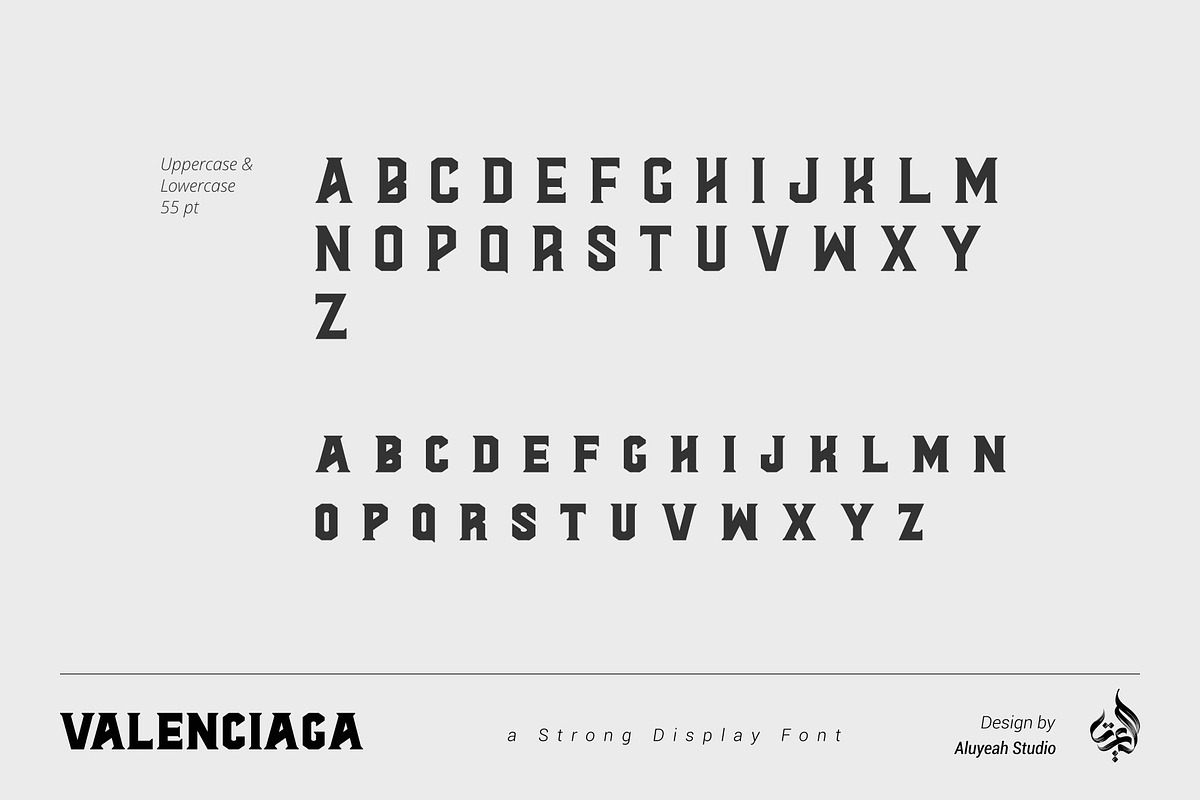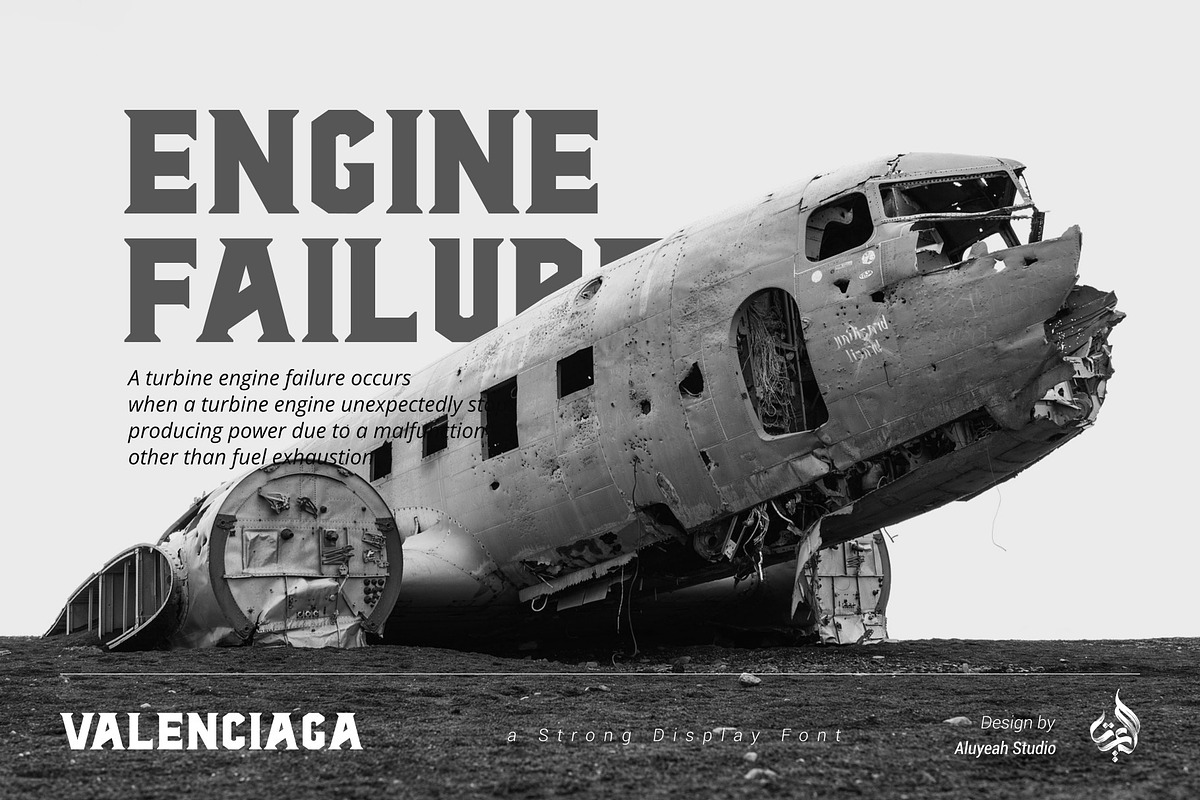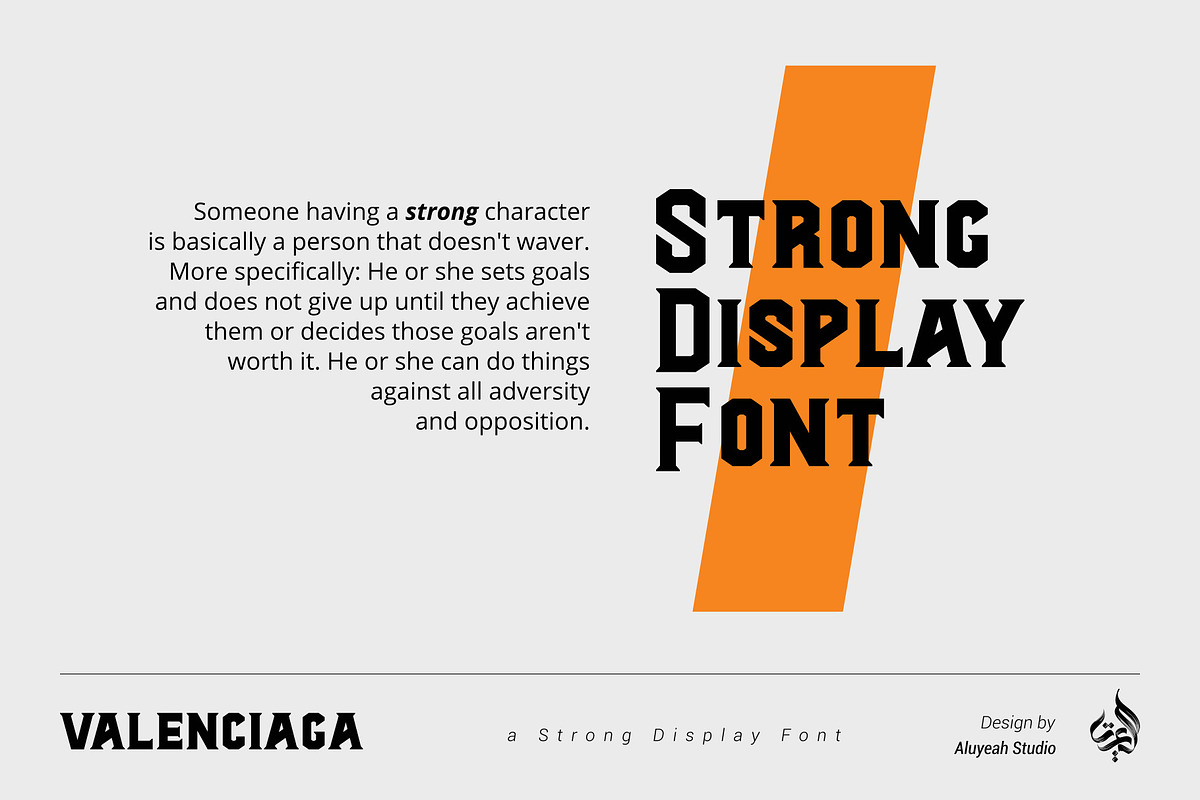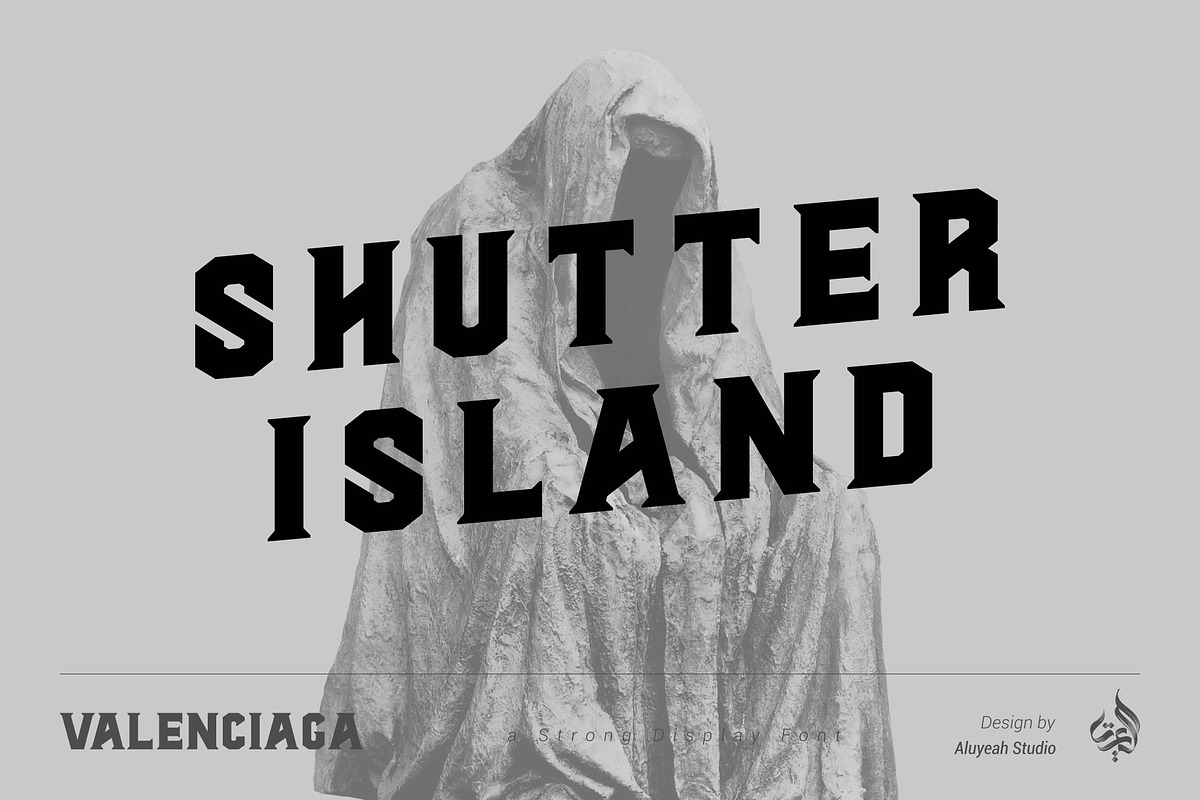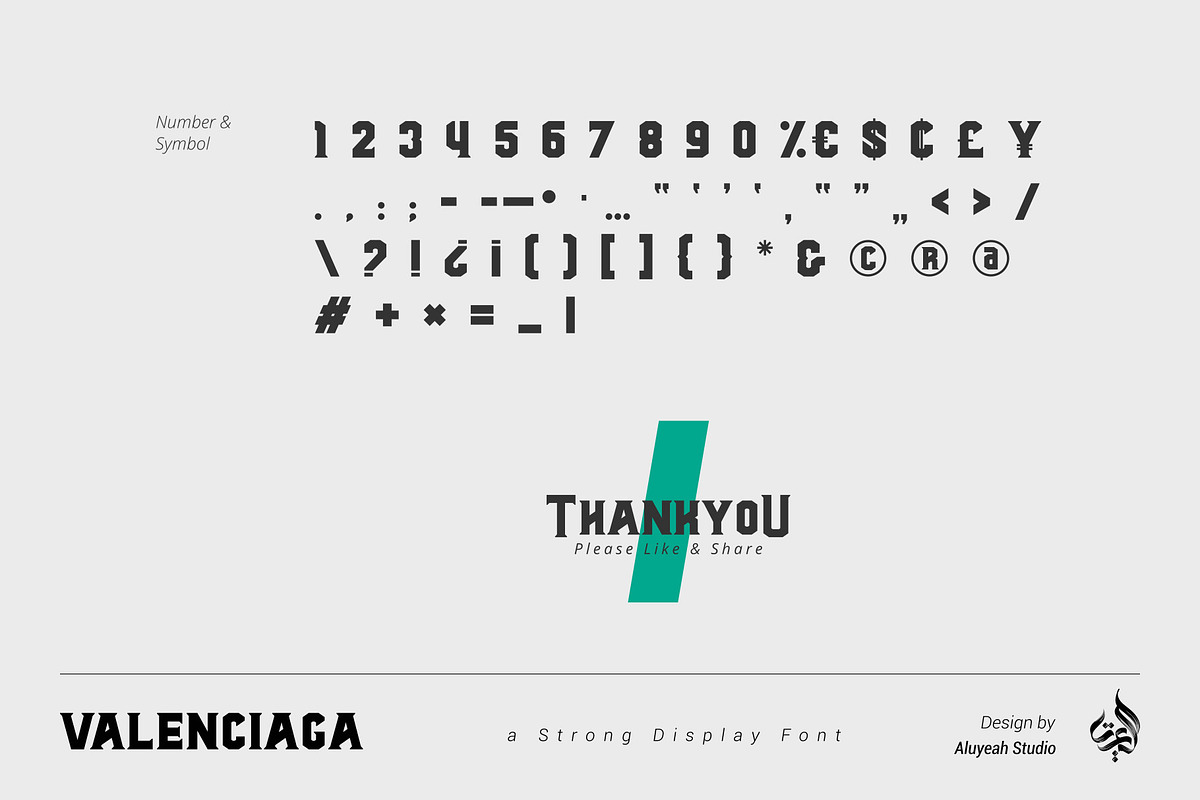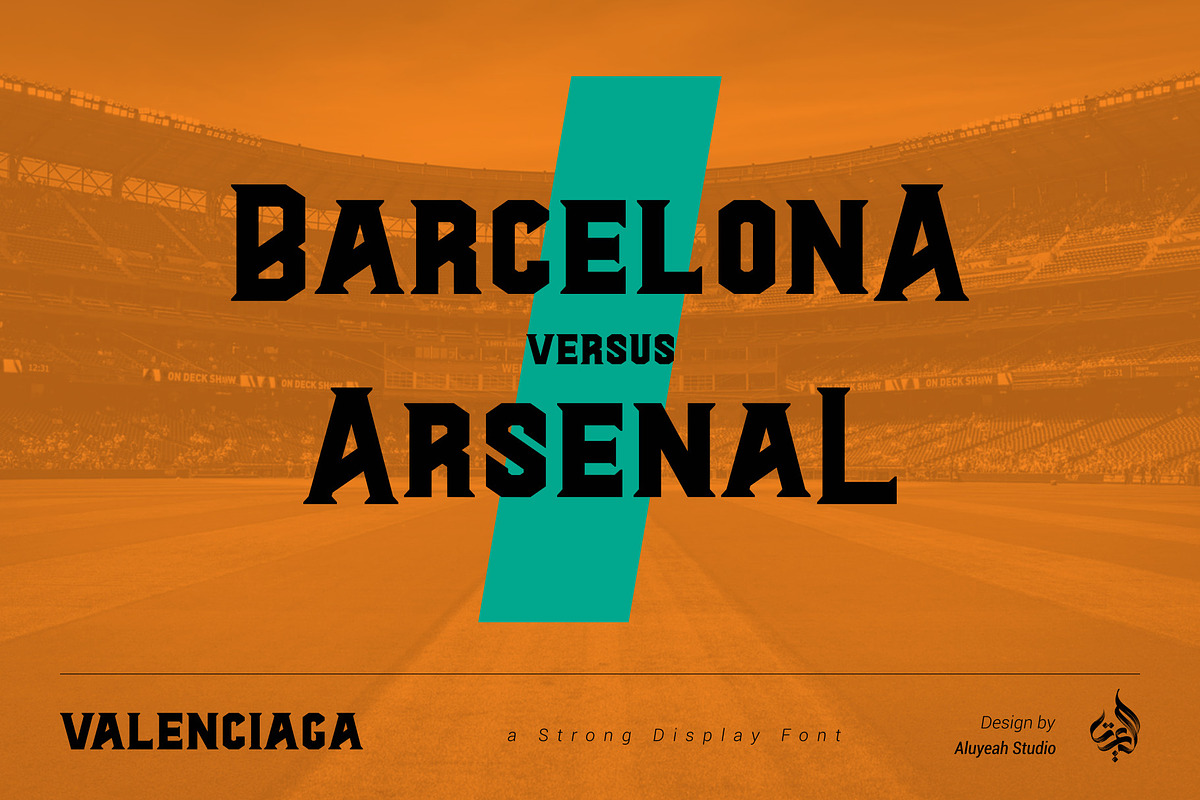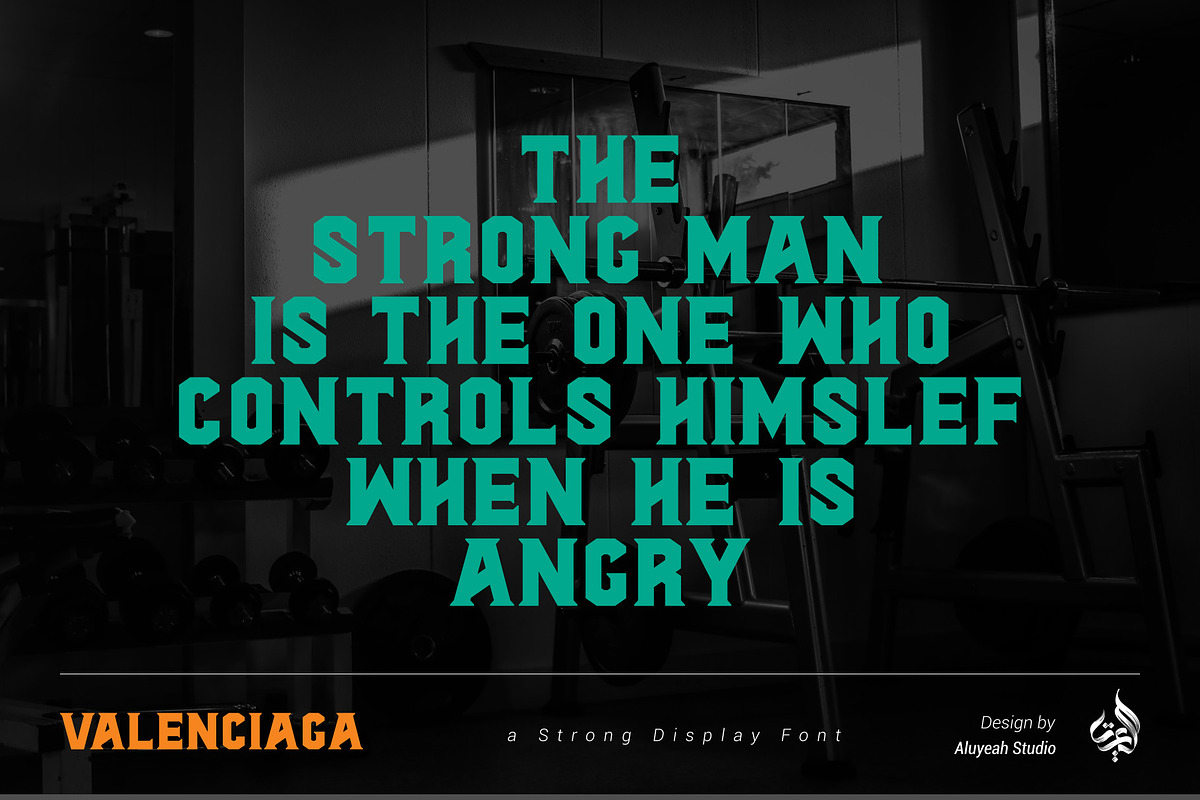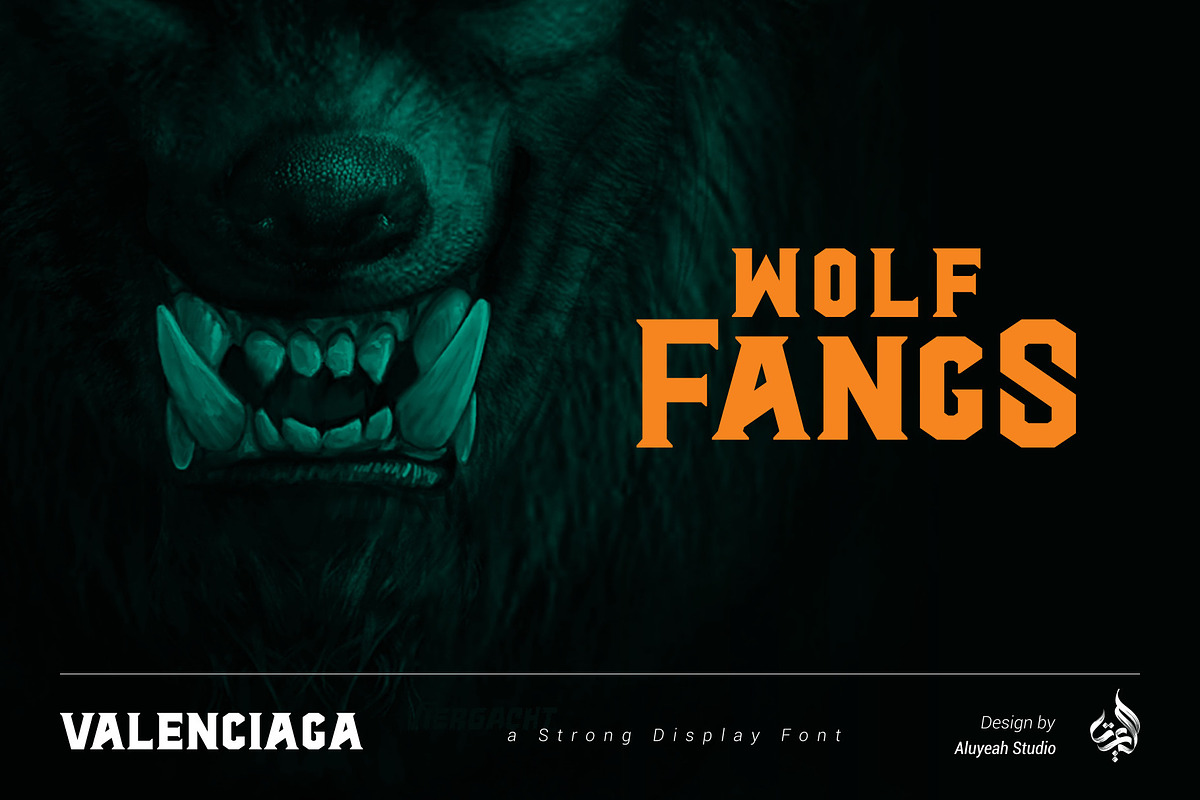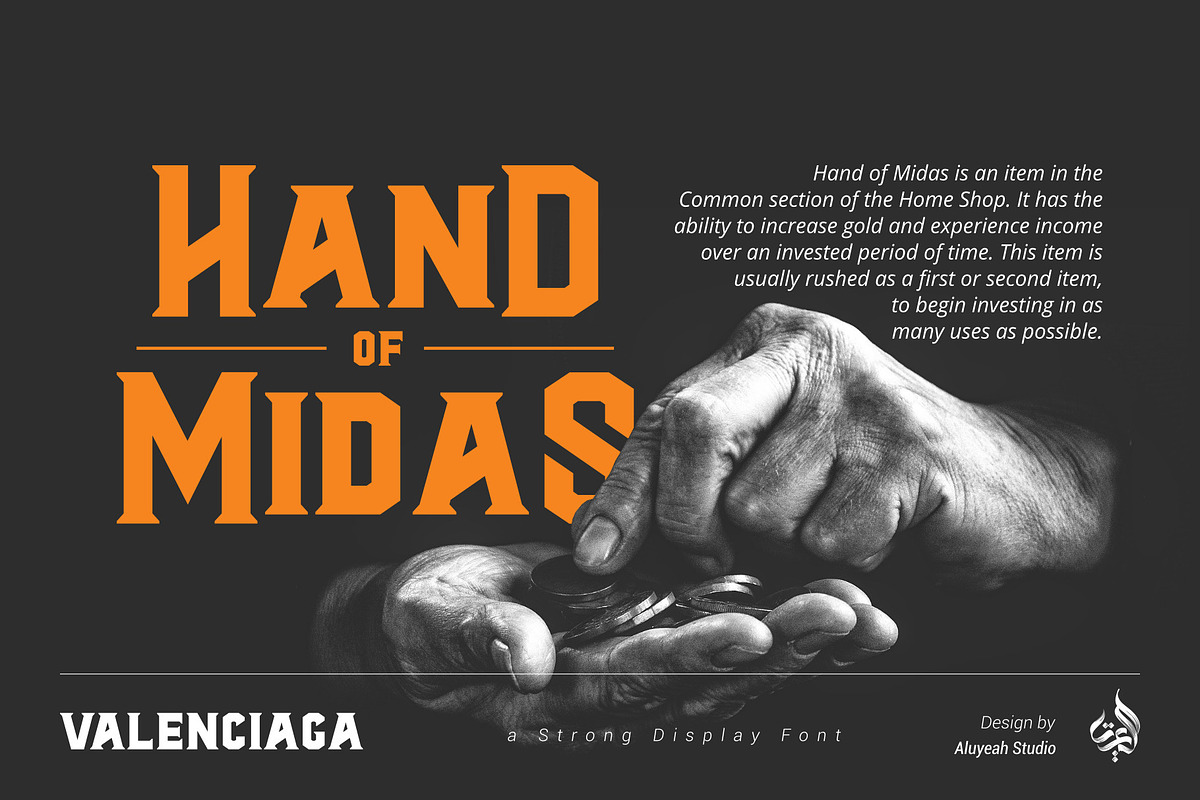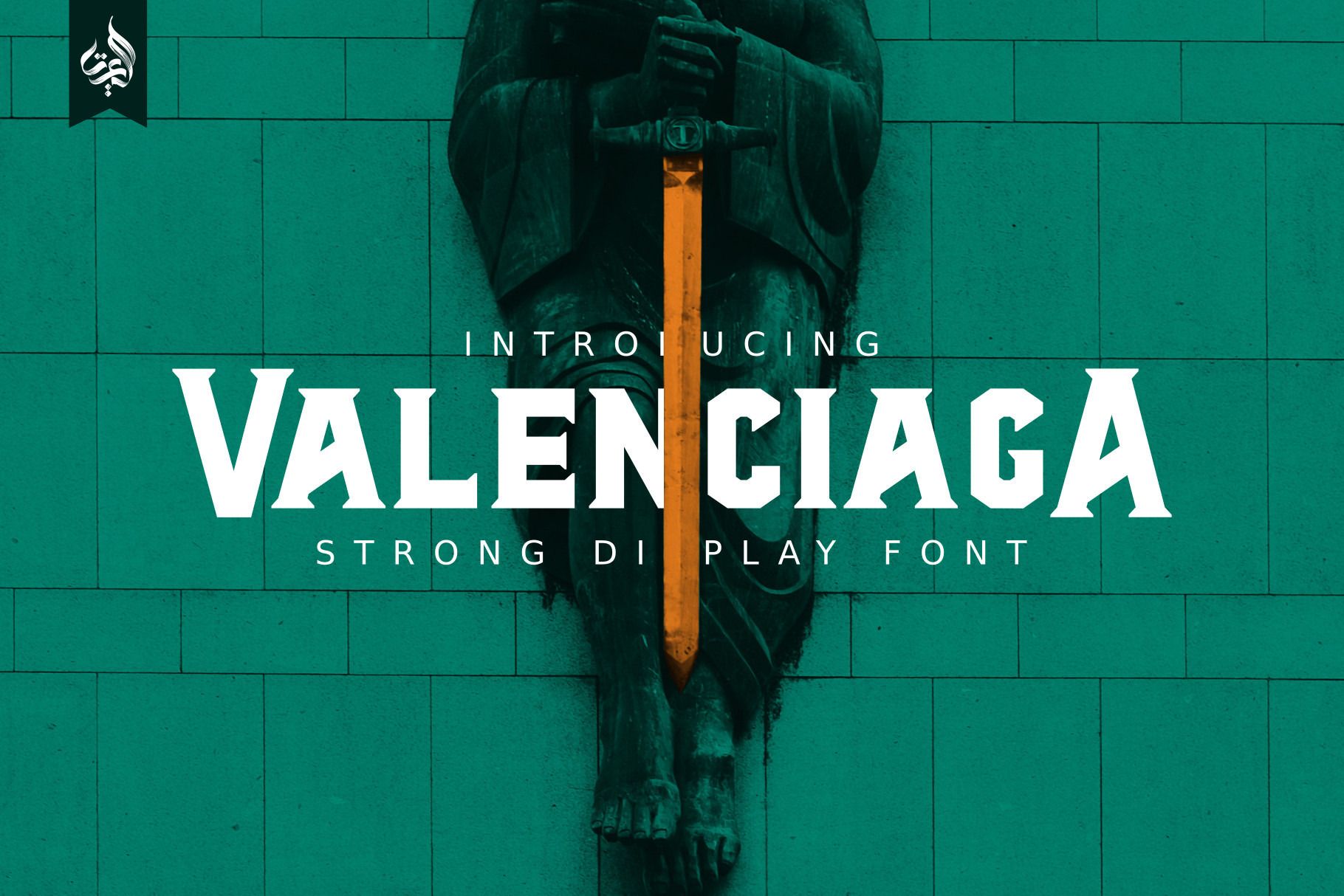
Valenciaga | Strong Display Font
Valenciaga is a strong display font. Valenciaga is a fully-kerned title case display typeface built for strong design vibe. Valenciaga is raw and uncut with sharp terminals and serifs that give off an aggressive appearance. The difference in depth between the uppercase and lowercase, making Valenciaga very suitable to be the display font for your product packaging, logo, branding, and more!
This typeface features 180+ characters with some language adaption that is guaranteed to give your project a competitive edge.
- OpenType support
- Multilingual support (15 languages)